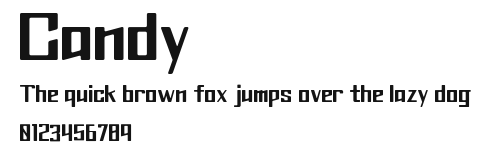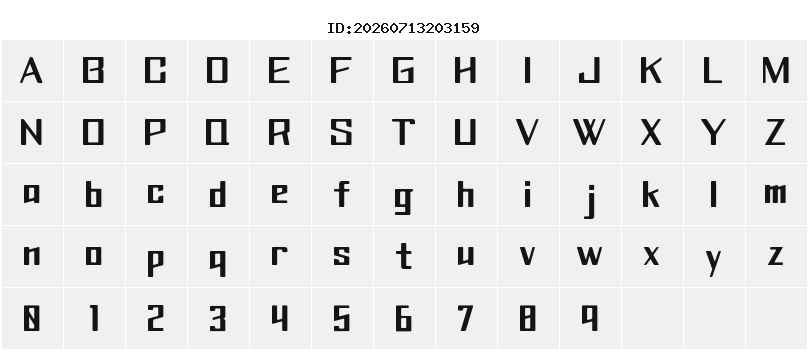
Candy Preview
• Font Name: Candy
• Full Font Name: Candy
About Candy.ttf
Candy.ttf is a modern, elegant sans-serif font designed for ultimate readability and visual harmony. Perfect for branding, headlines, web design, and print materials.